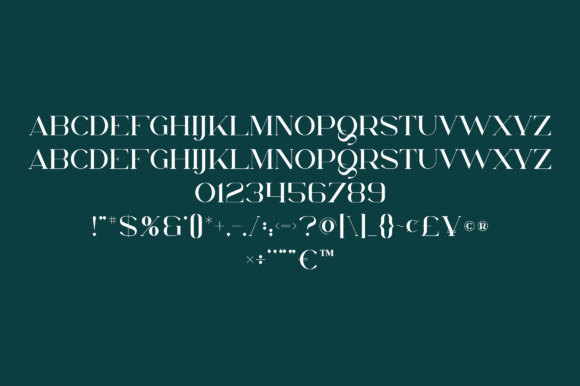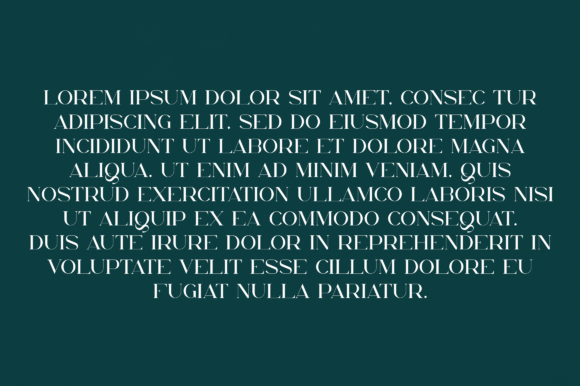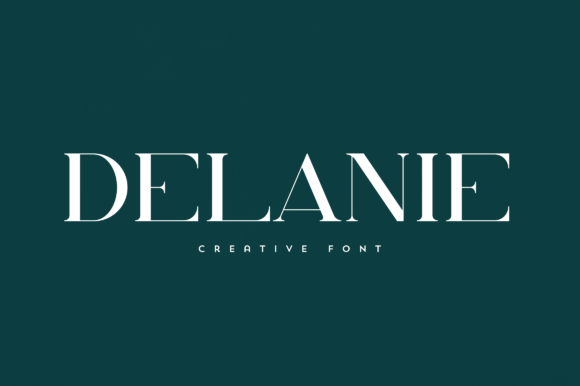
Introducing Delanie Font: Elevate Your Typography with Elegance and Versatility
In the world of design, typography plays a crucial role in conveying messages, expressing creativity, and establishing brand identities. A font can make or break a design project, which is why choosing the right one is essential. If you’re on the hunt for a typeface that exudes elegance, sophistication, and uniqueness, look no further than Delanie Font. This stunning font is designed to transform your typography into a truly remarkable visual experience.
The Delanie Font Advantage: Elegance and Versatility
Delanie Font is an elegant and versatile typeface that boasts a distinctive charm, making it perfect for a wide range of design applications. Whether you’re working on a logo, branding project, headline, or plain text, Delanie Font is sure to enchant your audience. Its sophisticated design ensures that it can be used in various contexts, from home-ware designs and product packaging to magazine headers and stylish text overlays on background images.
Delanie Font is a designer’s dream come true. Its unique and elegant design makes it an excellent choice for:
- Branding Projects: Establish a strong brand identity with Delanie Font’s sophisticated and memorable design.
- Home-ware Designs: Add a touch of elegance to your home-ware designs, making them stand out in a crowded market.
- Product Packaging: Create eye-catching packaging that showcases your product in style.
- Magazine Headers: Grab the attention of your readers with Delanie Font’s stunning and elegant headers.
- Text Overlays: Add a touch of sophistication to your background images with Delanie Font’s stylish text overlays.
What Makes Delanie Font Stand Out?
Delanie Font’s unique design is characterized by its:
- Elegant Lines: Delanie Font features smooth, flowing lines that exude sophistication and refinement.
- Versatile Style: The font’s versatile design makes it suitable for a wide range of design applications.
- Unique Character: Delanie Font’s distinctive charm ensures that your typography stands out from the crowd.
Tips for Using Delanie Font Effectively
To get the most out of Delanie Font, consider the following tips:
- Pair with Complementary Fonts: Combine Delanie Font with complementary fonts to create a visually appealing contrast.
- Experiment with Sizes and Colors: Play with different font sizes and colors to add depth and interest to your design.
- Use on High-Quality Backgrounds: Showcase Delanie Font on high-quality background images or textures to create a stunning visual effect.
Delanie Font is an exceptional typeface that offers elegance, versatility, and uniqueness. Whether you’re a designer, crafter, or simply someone who appreciates beautiful typography, Delanie Font is sure to impress. With its wide range of applications and tips for effective use, Delanie Font is the perfect addition to your design toolkit. Elevate your typography and take your design projects to the next level with Delanie Font.
Get ready to enchant your audience with Delanie Font – the perfect choice for designers and crafters who demand the best.